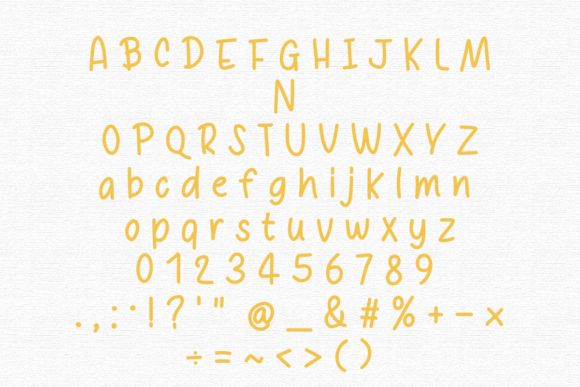
Introducing Countdown Font: The Perfect Handwritten Font for Creative Expression
The world of typography is vast and diverse, offering a multitude of font styles to suit various design needs. Among these, handwritten fonts hold a special place for their unique, personal touch. One such font that has garnered attention for its elegance and versatility is the Countdown Font. Described as a handwritten font, Countdown offers a blend of sophistication and informality, making it an excellent choice for a wide range of projects.
The Essence of Countdown Font
Countdown Font is not just any ordinary handwritten font. It is a carefully crafted typeface designed to mimic the fluidity and natural flow of handwriting. This font is perfect for those who appreciate the aesthetic of handwritten text but require a clean and readable design for their projects. Whether you’re taking notes, writing a diary, or creating greeting cards, Countdown Font provides a stylish and legible solution.
Beyond Traditional Use: Exploring Creative Possibilities
While Countdown Font excels in personal and intimate settings like diaries and greeting cards, its potential extends far beyond these traditional uses. The font’s versatility makes it suitable for a variety of design projects, including:
- Banners: Create eye-catching banners for events, promotions, or personal celebrations with a personal touch.
- Content creation: Enhance your blog posts, articles, or social media content with a unique typography style that sets you apart.
- Mugs and cards: Design personalized gifts and greeting cards for special occasions.
- Shirts and apparel: Add a stylish quote or message to your clothing designs.
- Stationery: Elevate your notebooks, journals, or letterheads with a touch of elegance.
- Social media posts: Stand out on social media platforms with custom typography that reflects your personality or brand.
Why Choose Countdown Font?
There are several reasons why Countdown Font stands out among other handwritten fonts:
1. Readability
Despite its handwritten nature, Countdown Font maintains a high level of readability, making it suitable for both short and long texts.
2. Versatility
Its elegant yet casual appearance allows it to be used across various platforms and design projects.
3. Personal Touch
It adds a personal and emotional touch to your designs, making them more relatable and engaging.
Tips for Using Countdown Font Effectively
To maximize the potential of Countdown Font, consider the following tips:
- Mix and match: Combine Countdown Font with other fonts to create visual interest and hierarchy in your designs.
- Adjust size and color: Play with different sizes and colors to emphasize certain parts of your text and add depth to your design.
- Consider the context: Ensure that the font style aligns with the tone and purpose of your project.
Countdown Font is more than just a handwritten font; it’s a tool for creative expression. Its elegance, readability, and versatility make it an excellent choice for a wide array of design projects. Whether you’re creating personal mementos like diaries and greeting cards or professional materials such as banners and stationery, Countdown Font offers the perfect blend of style and functionality. Embrace the unique charm of Countdown Font and elevate your designs to a new level of sophistication and personalization.